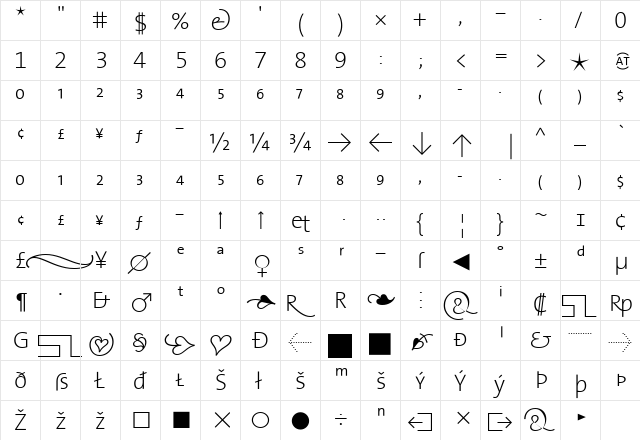
The Sans Extra Light- Light
Design Context for The Sans Extra Light- Typeface
The Sans Extra Light- offers clean, dependable letterforms without strong stylistic allegiance, making it a practical choice for designers who need flexibility. Its slender proportions lend an understated elegance to any composition.